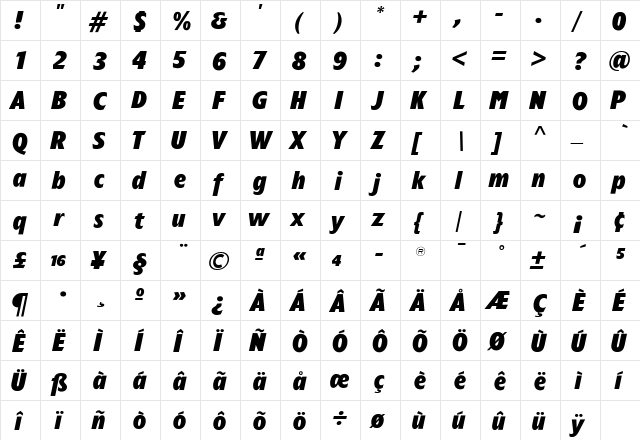
TFForever Extrabold
| Foundry | J. Treacy,Treacyfaces,Inc |
| Year | 1988 |
Design Context for TFForever Typeface
TFForever offers clean, dependable letterforms without strong stylistic allegiance, making it a practical choice for designers who need flexibility. The heavy weight commands attention and anchors typographic hierarchies.